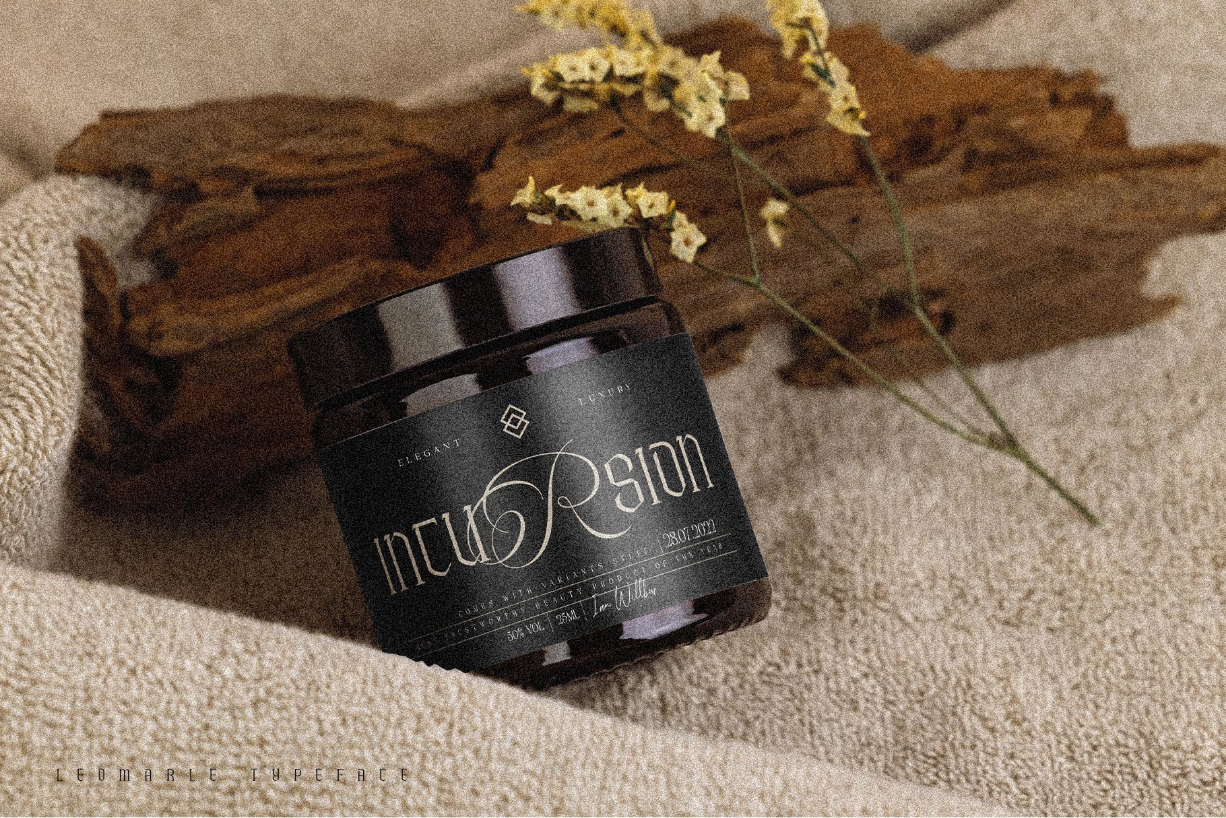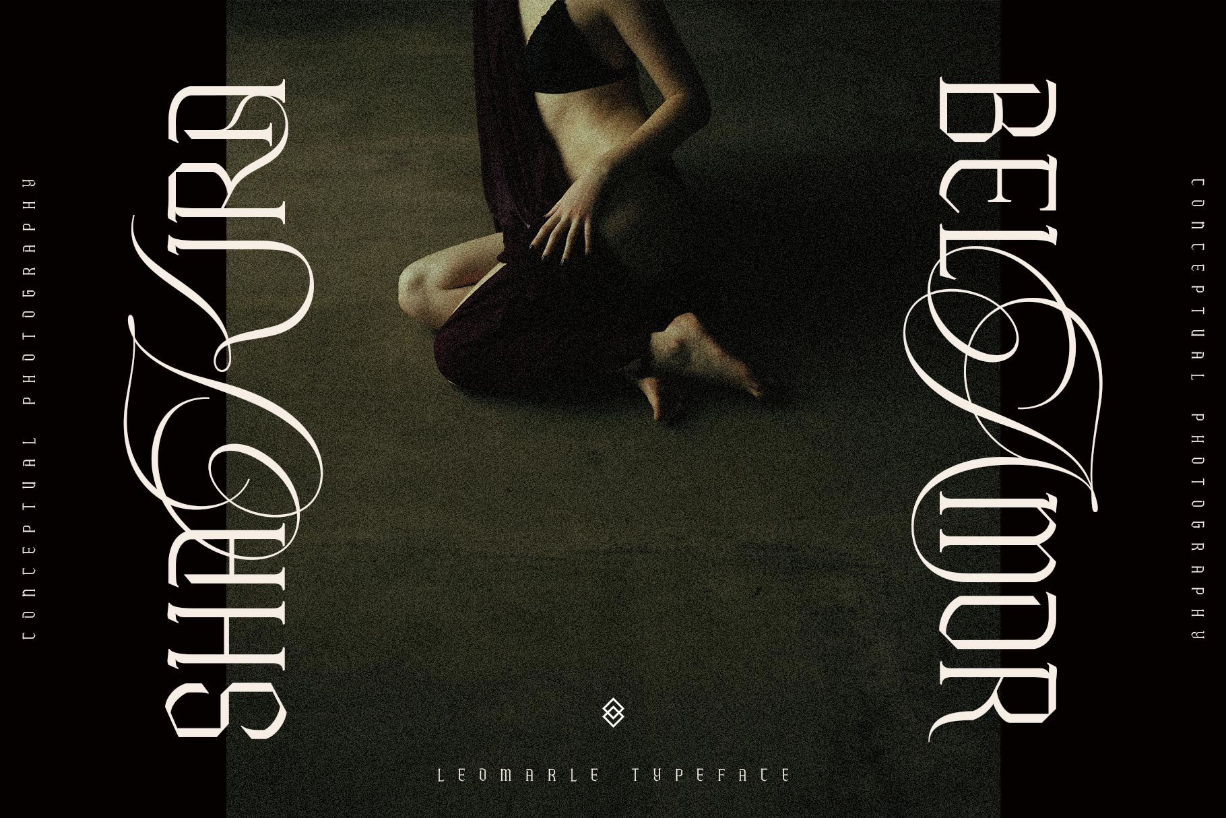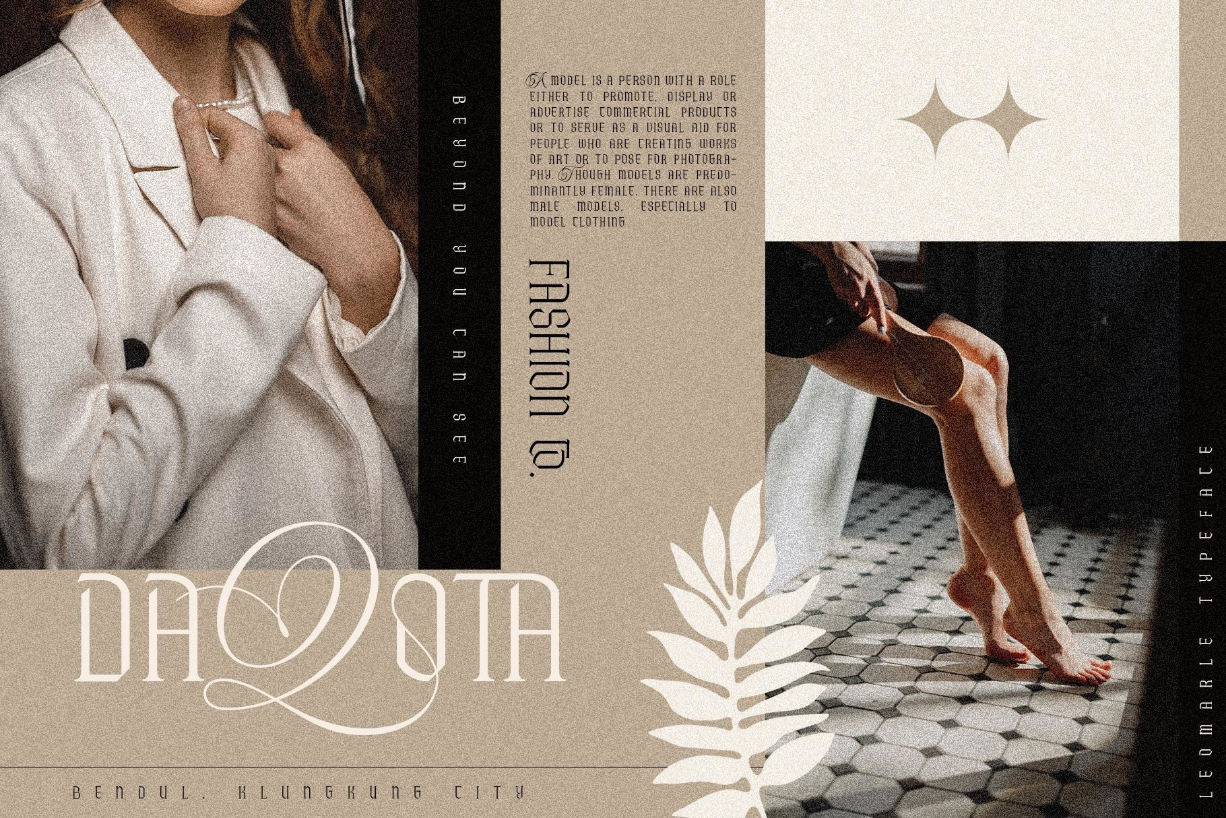
About Leomarle Font
Leomarle is inspired by the classic blackletter font. The Leomarle font is designed with an elegant combination of scripts that is very cool when combined with a simple blackletter style. This font looks unique and elegant when used for making designs.
Leomarle is perfect for magazine cover designs, brochures, flyers, instagram ads, canva design and so on, with unique and modern concepts. Besides that, this font is very easy to use both in design and non-design programs because glyphs are supported by unicode (PUA).